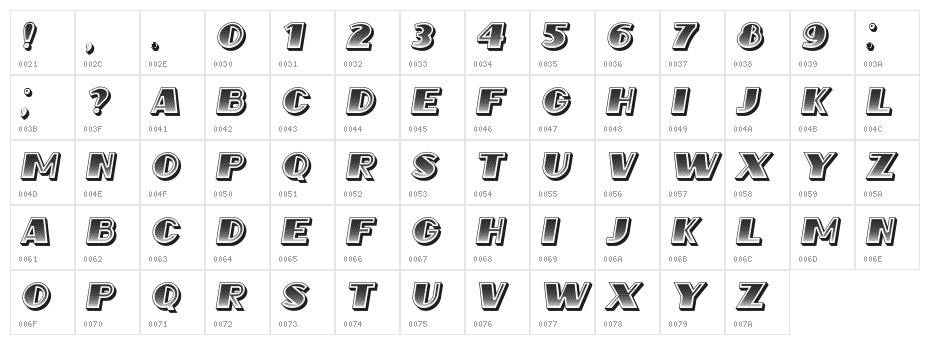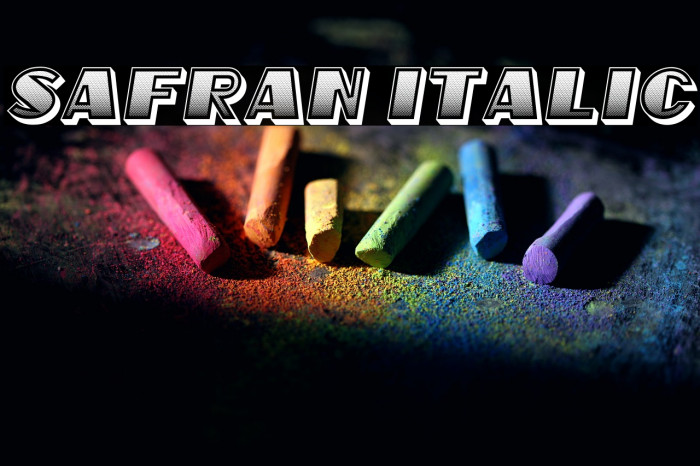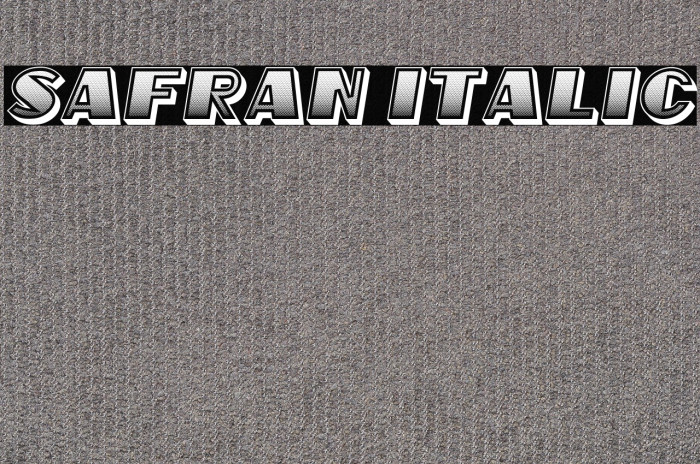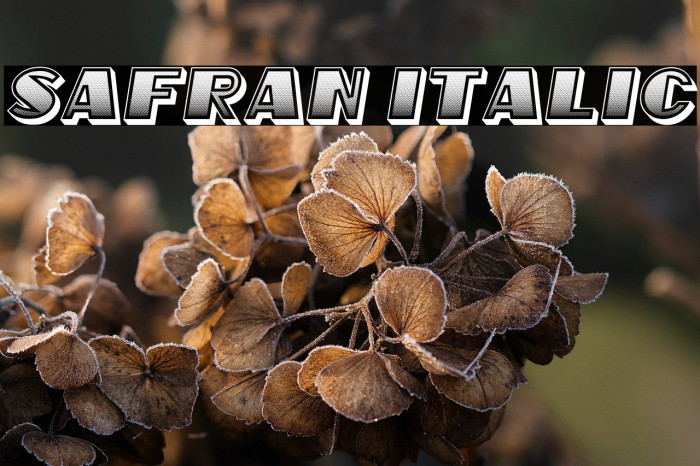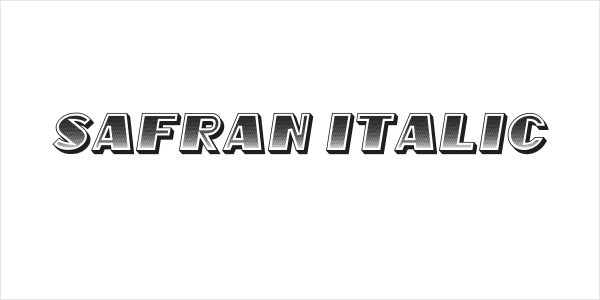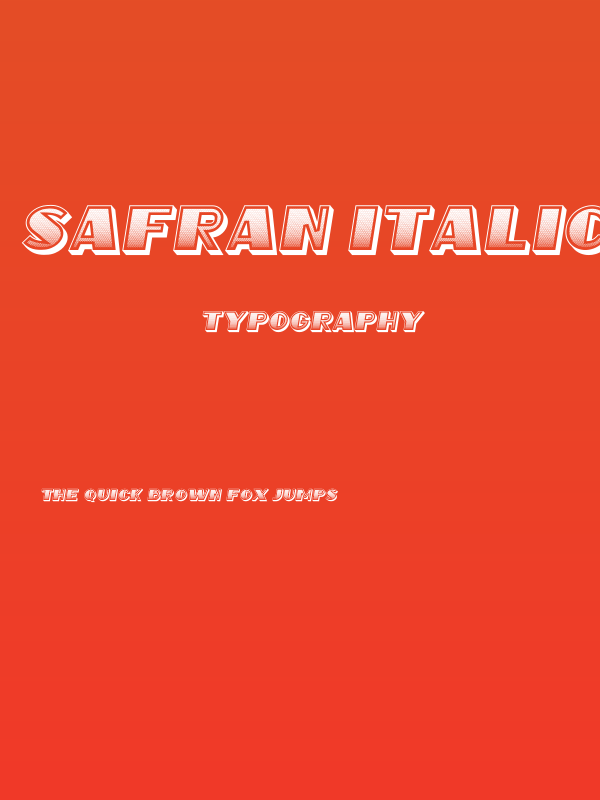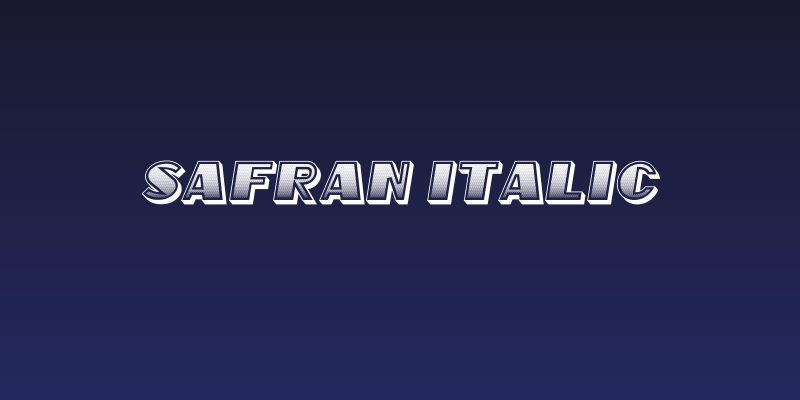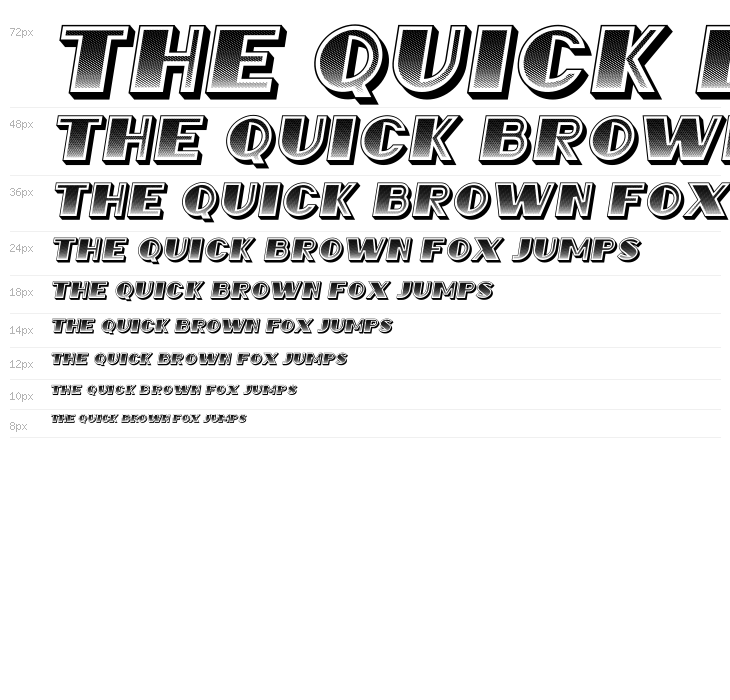
Safran Italic Font
Safran Italic Description
This font features a bold, italicized style with a distinct three-dimensional effect. Each character is outlined with a thick black border, creating a shadowed appearance that enhances its depth. The interior of the letters is filled with a dotted pattern, adding texture and visual interest. The font maintains a consistent slant, contributing to its dynamic and energetic look. Its boldness and unique design make it ideal for attention-grabbing applications. The characters are well-spaced, ensuring readability despite their decorative nature. This font is suitable for projects that require a strong visual impact and a modern, playful aesthetic.